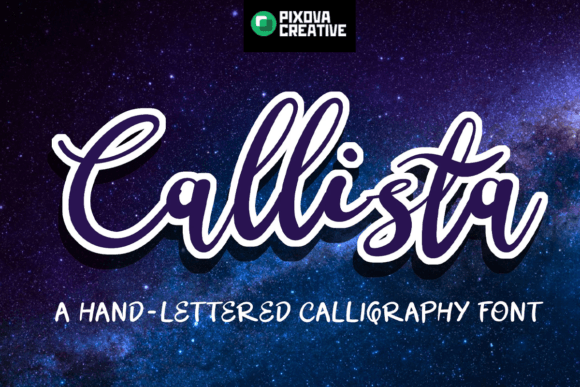
One of the key tools in our arsenal is the right font, and that’s where the Callista Font comes in. This charming, hand-painted-inspired font adds a playful touch to any project, making it perfect for adding a personal touch to your designs. Whether you’re working on a logo, a brochure, or a website, the Callista Font is a valuable asset that can help bring your ideas to life.
Callista Font Key Features
- Unique Characteristics: Callista Font features a unique blend of classic and modern elements, with intricate details and subtle texture, making it suitable for a wide range of designs.
- Font Style: It is available in regular and italic styles, providing versatility for different design applications.
- Language Support: Callista Font supports multiple languages, including Latin, Cyrillic, and Greek alphabets, making it a great choice for international designs.
Callista Font Review
Callista Font is a beautiful, elegant script font that has captured the hearts of many designers. Here are my thoughts on this lovely font:
- Beautiful script style: Callista Font has a lovely, flowing script style that makes it perfect for designing invitations, wedding cards, and other special occasion materials.
- High-quality design: The font is well-designed and has a professional look that’s hard to find in other fonts.
- Comprehensive character set: Callista Font has a comprehensive character set that includes all the necessary letters, numbers, and symbols.
- Limited bold and italic styles: While the regular style of Callista Font is beautiful, the bold and italic styles could be more detailed and refined.
- Not suitable for body text: Due to its script style, Callista Font is not ideal for body text or large blocks of text.
Overall, I’m very impressed with Callista Font. It’s a beautiful, elegant script font that’s perfect for special occasions and designing invitations. While it has some limitations, it’s still a great addition to any font collection.
For best results, use Callista Font in headings and titles to add a touch of elegance to your design.
Use Callista Font to add a sophisticated touch to your typography and make it stand out in your design.
Use Callista Font to add a professional touch to your headings and titles in your presentation or document.